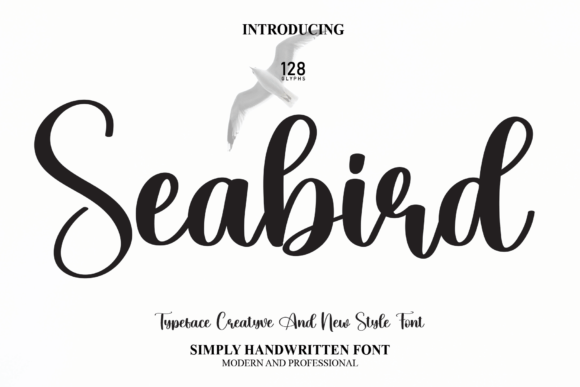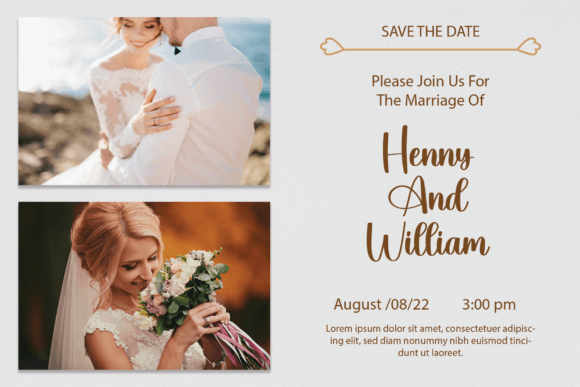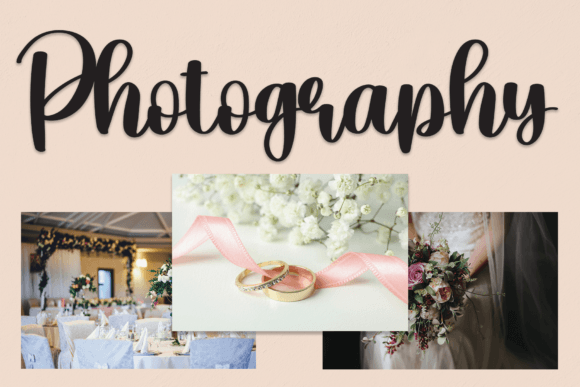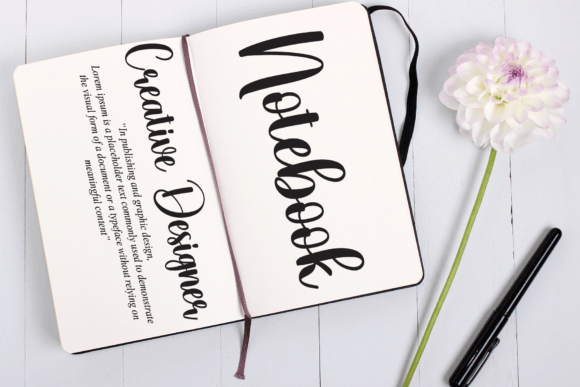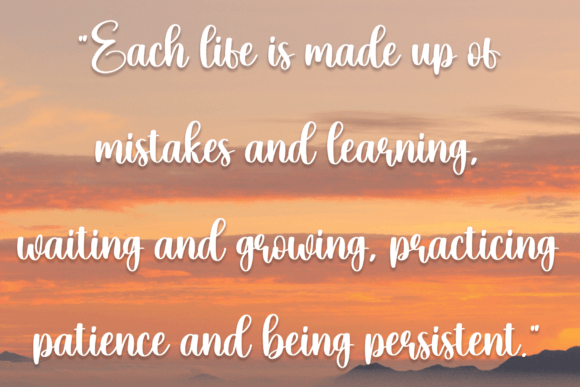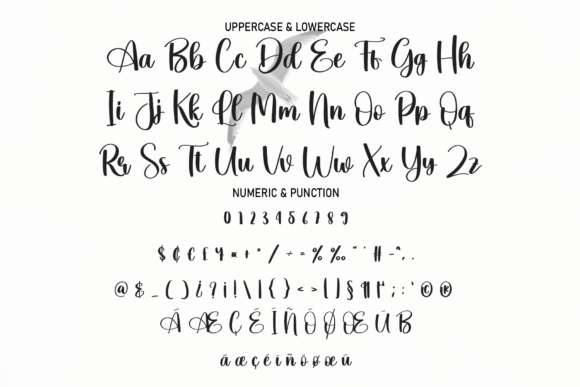
Seabird Font
About Seabird Font
Seabird is an exquisite handwritten font, masterfully designed to become a true favorite. It maintains its classy calligraphic influences while feeling contemporary and fresh. Fall in love with it and bring your projects to the highest levels!